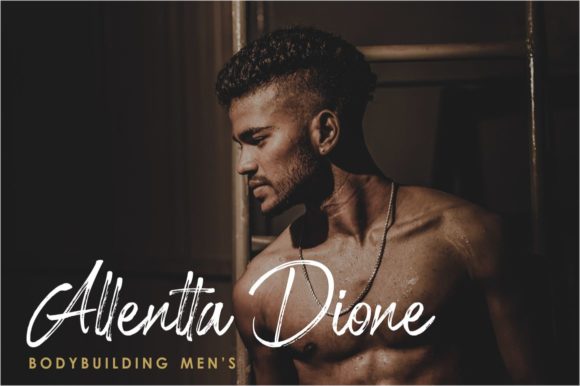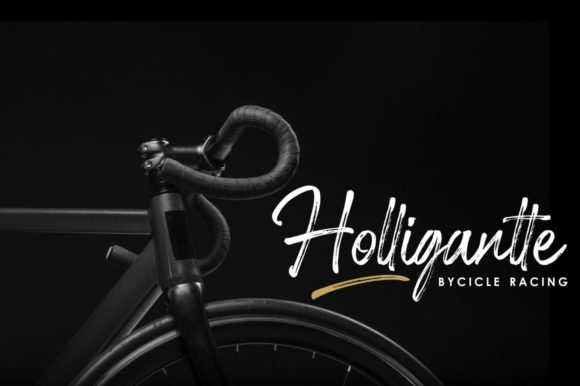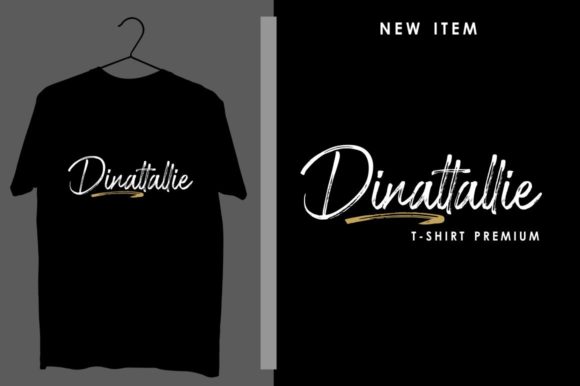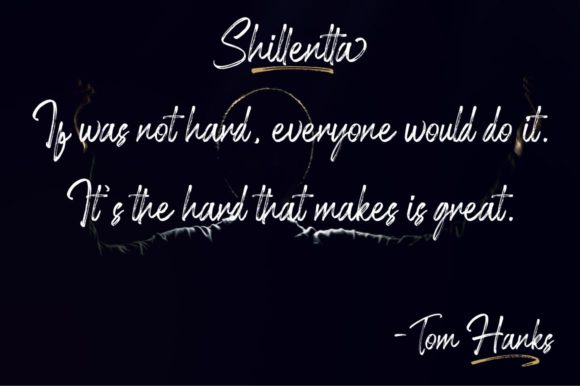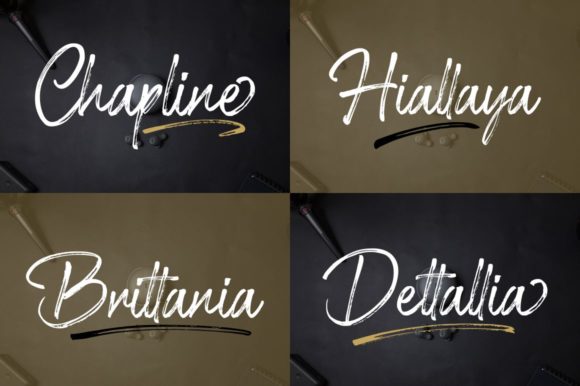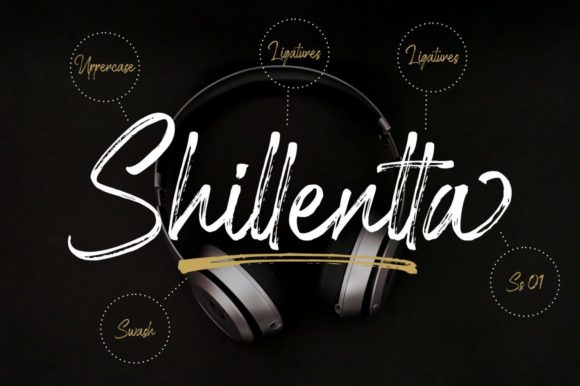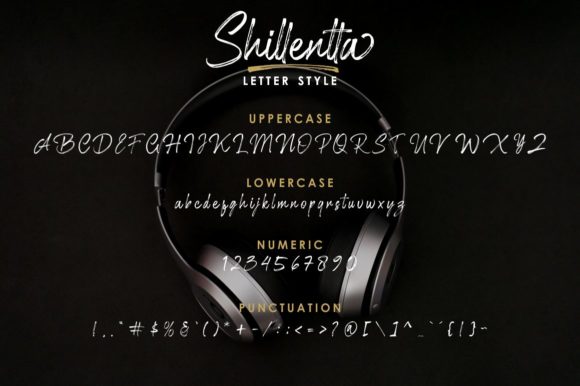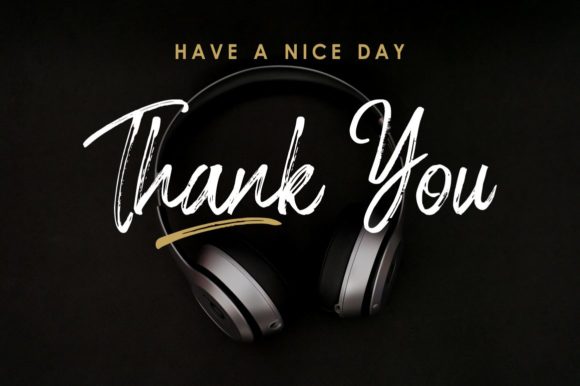
HomeScript FontsShillentta Font Script Fonts Shillentta Font FacebookXPinterestWhatsApp Shillentta Font Poster 2 Shillentta Font Poster 3 Shillentta Font Poster 4 Shillentta Font Poster 5 Shillentta Font Poster 6 Shillentta Font Poster 7 Shillentta Font Poster 8 Shillentta Font Poster 9 About Shillentta Font Shillentta is a strong and dynamic script with unique letters. Get inspired by its authentic look! DOWNLOAD ON CREATIVE FABRICAThis font is sold and delivered by Creative Fabrica. Font Canyon may earn a commission if you buy through this link. People also explored Catalog Envelope Scene Alarm Clock Font Vaguard Font Garden Fancy Duo Font Holga Crafty Sons Font Love Story Brush Font Holdyman Font Bodhi Font 309 0 TagsShillentta Font Previous articleHanberra FontNext articleSiantar Font LEAVE A REPLY Cancel reply Comment: Please enter your comment! Name:* Please enter your name here Email:* You have entered an incorrect email address! Please enter your email address here Website: Save my name, email, and website in this browser for the next time I comment. Personal Use Free Rolling Door Personal Use Free Read more about this font BD TinyFont Personal Use Free Read more about this font Mallvirra Personal Use Free Read more about this font White Rose Personal Use Free Read more about this font BLOG Elegant Wedding Invitation Fonts – Handwritten & Script Fonts Elegant Wedding Invitation Fonts Your wedding day is one of the most important moments of your life, and every detail matters—including your invitation design. Our... Free vs Paid Fonts: Why Investing in Premium Fonts Is Worth It Top 7 Google Fonts Alternatives for Faster and Privacy-Friendly Web Design (2025) Fonts That Capture the Spirit of New York City